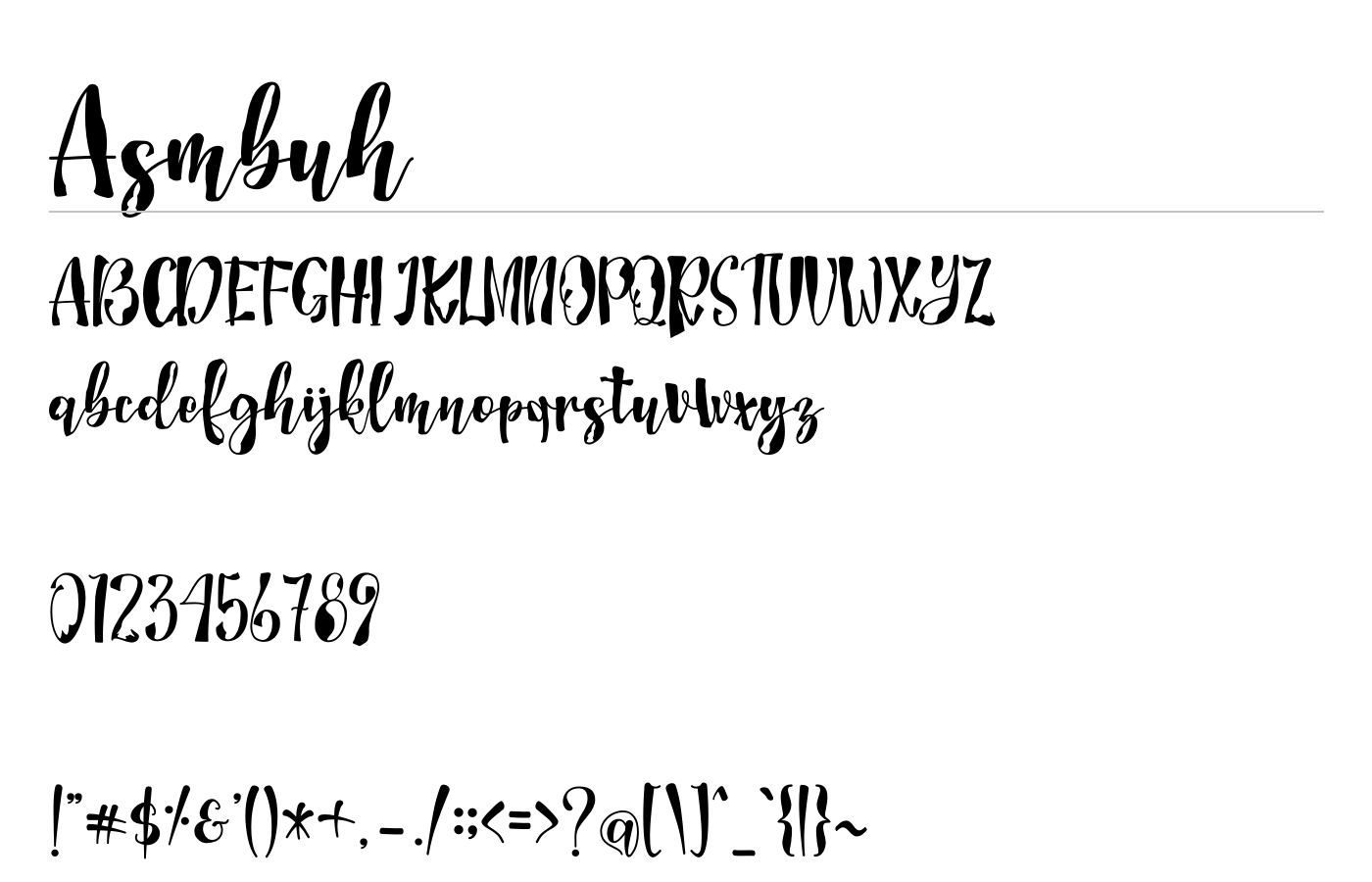
Asmbuh is a playful and expressive script font featuring a brush-style calligraphic design with dynamic stroke contrast and fluid letterforms. Its lively uppercase and lowercase characters, combined with whimsical curves and unique details, make it ideal for creative branding, invitations, and eye-catching headlines. This font brings a personal, artistic touch that works well for projects seeking a fun, handcrafted aesthetic.
Asmbuh Font
About Asmbuh Font
| Font family | Asmbuh Font |
| Designer | Ahmad Afandi |
| Trademark | Letterafa |